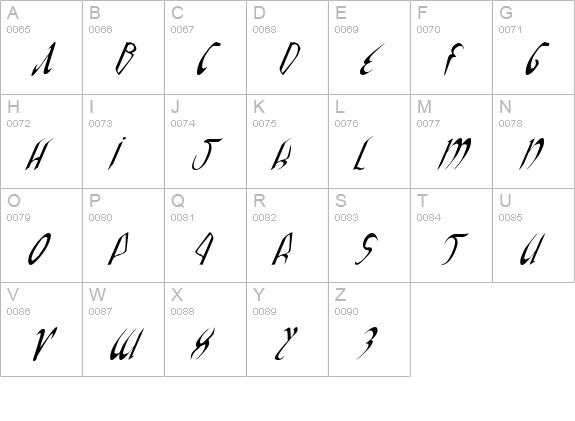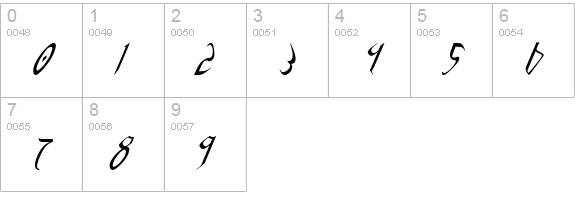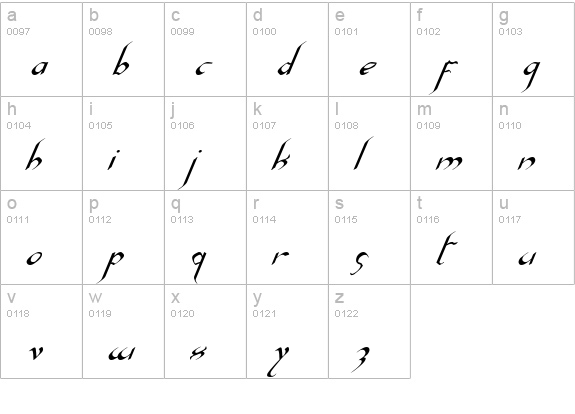
Xaphan Italic is a distinctive, italic variant in the Xaphan typeface family \xE2\x80\x94 well suited to design and typography projects.
Introducing Xaphan Italic font, a modern and elegant typeface that exudes sophistication and style. Its sleek and streamlined design is perfect for adding a touch of class to any project. The italicized characters give a sense of fluidity and movement, making it a versatile choice for both headings and body text. Xaphan Italic font is not only visually appealing but also incredibly versatile, suitable for a wide range of design projects. Whether you're working on branding, editorial design, or web design, this font is sure to make a statement. The best part? Xaphan Italic font is completely free to download at FontsMarket.com. Take advantage of this opportunity to elevate your design projects with this stunning typeface. Download Xaphan Italic font today and add a touch of elegance to your creations.